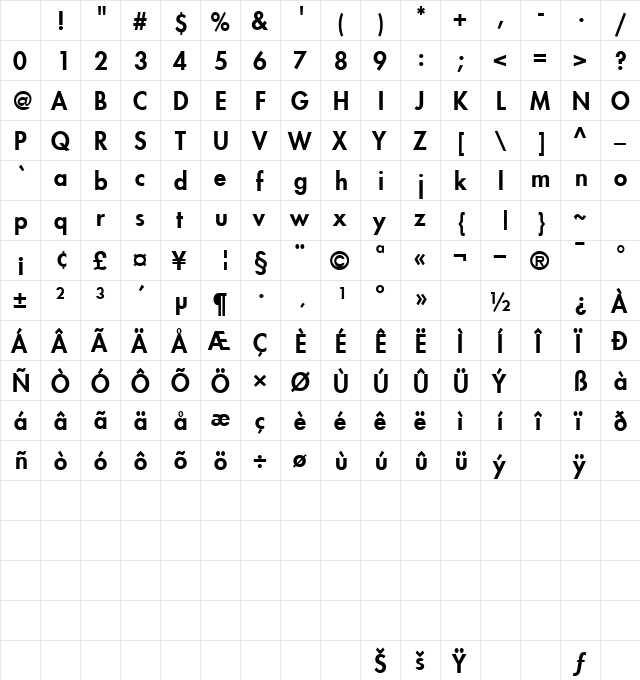
Complete Recorder Normal glyph index. Displaying only characters natively supported by Recorder Normal font.
Recorder is a composed and adaptable typeface that performs quietly and consistently across a wide range of design contexts.